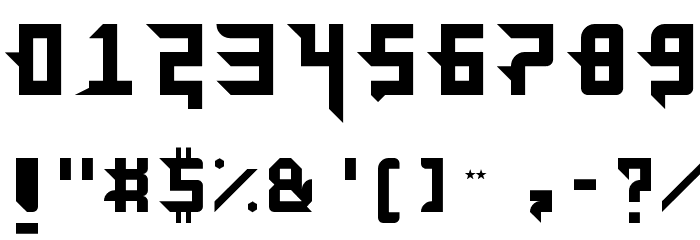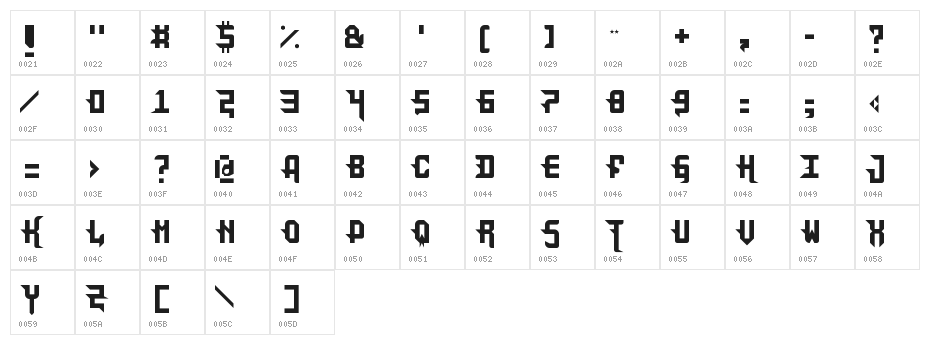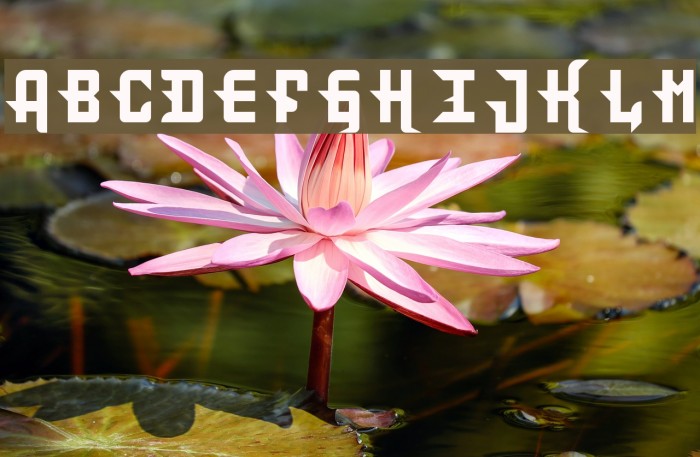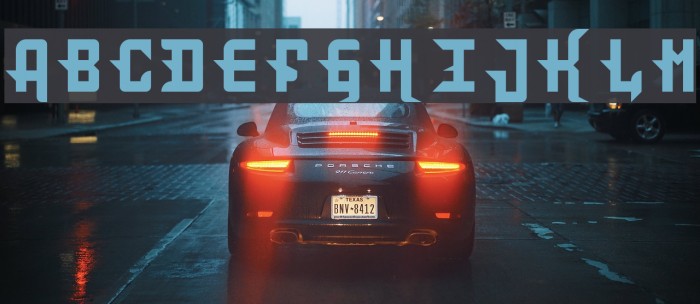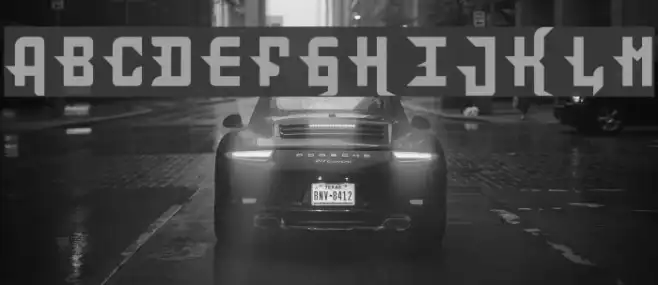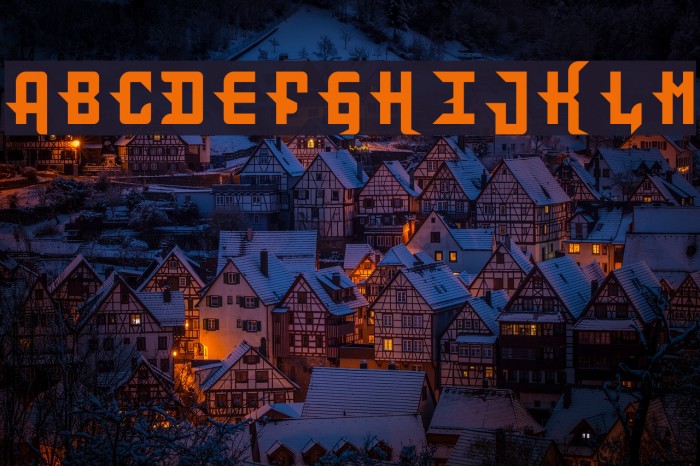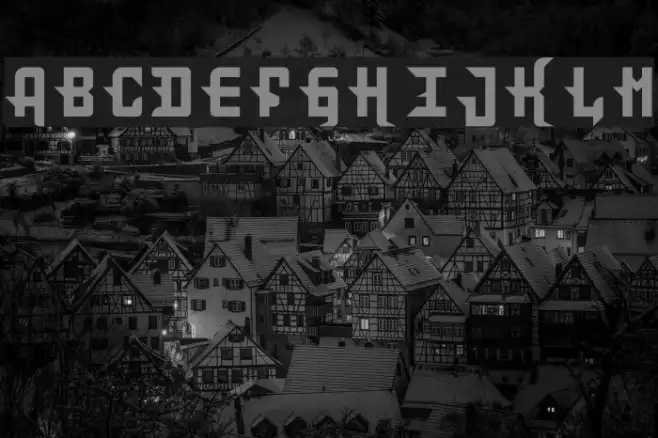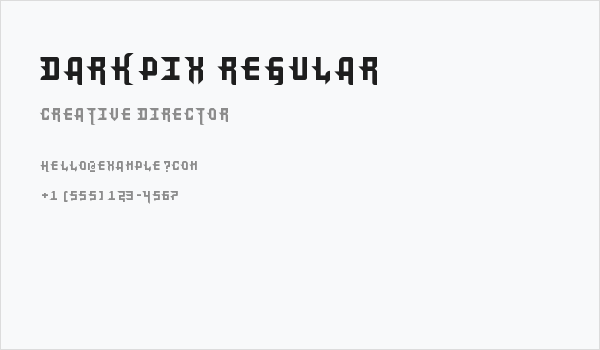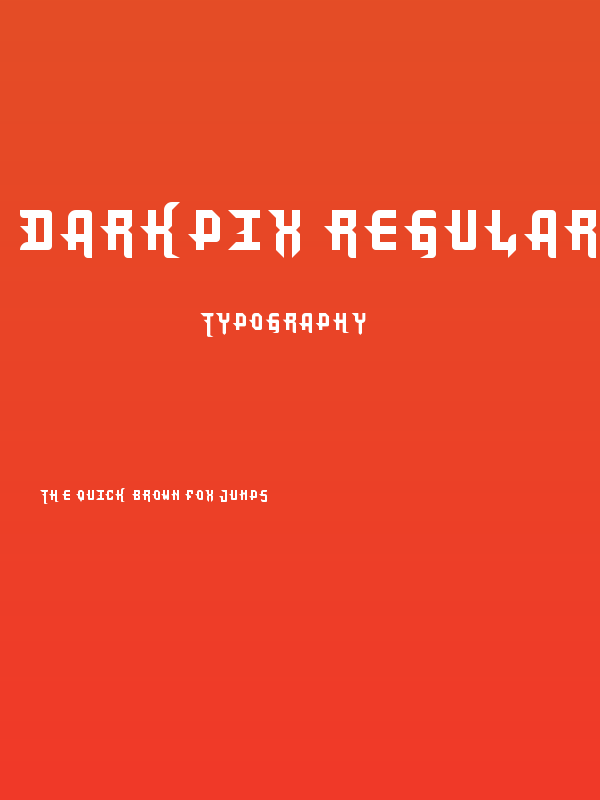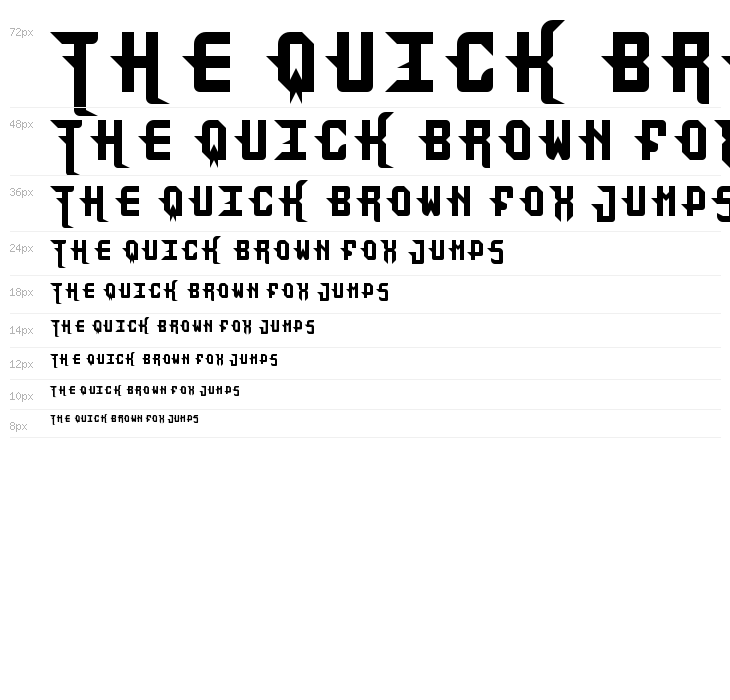
DarkPix Regular Font
DarkPix Regular Description
This font features a bold, angular design with sharp edges and geometric shapes, giving it a futuristic and edgy appearance. The characters are distinct with a consistent thickness throughout, creating a uniform look. The uppercase and lowercase letters maintain a similar style, with the lowercase being slightly smaller in size. Numbers and special characters are designed to match the overall aesthetic, making them easily recognizable. The font's unique style makes it stand out, ideal for projects that require a modern and bold statement.
Proposed ProjectsIdeal for video game titles, sci-fi movie posters, tech branding, and edgy graphic designs.